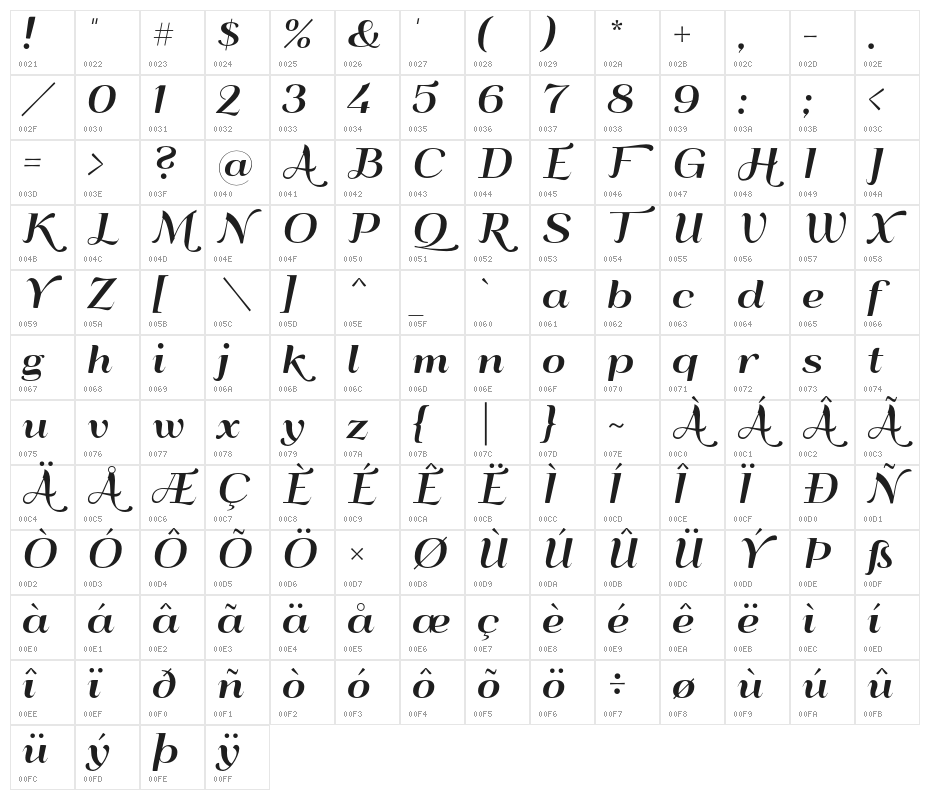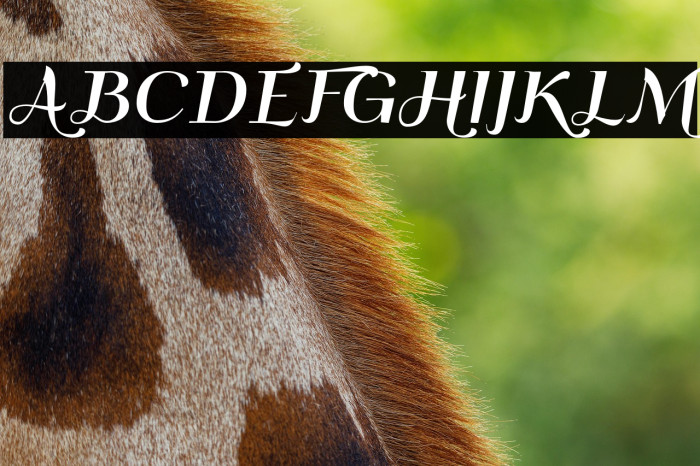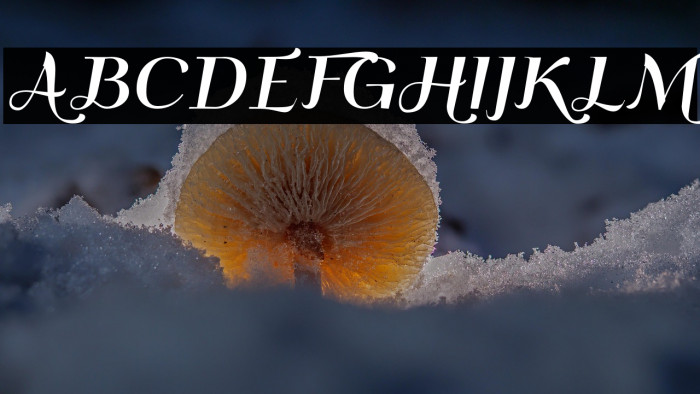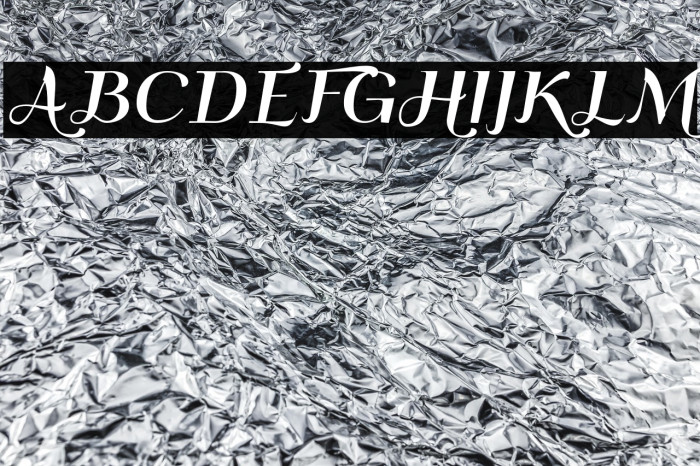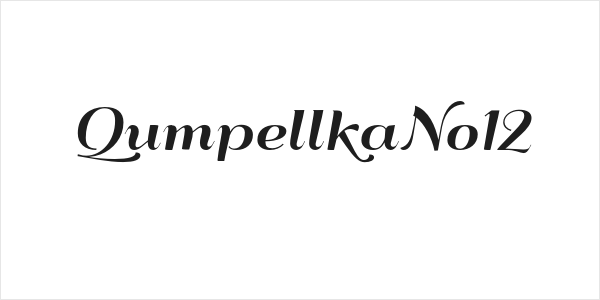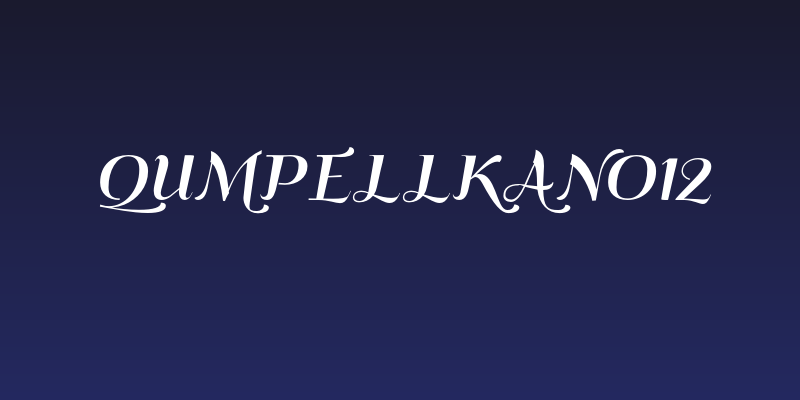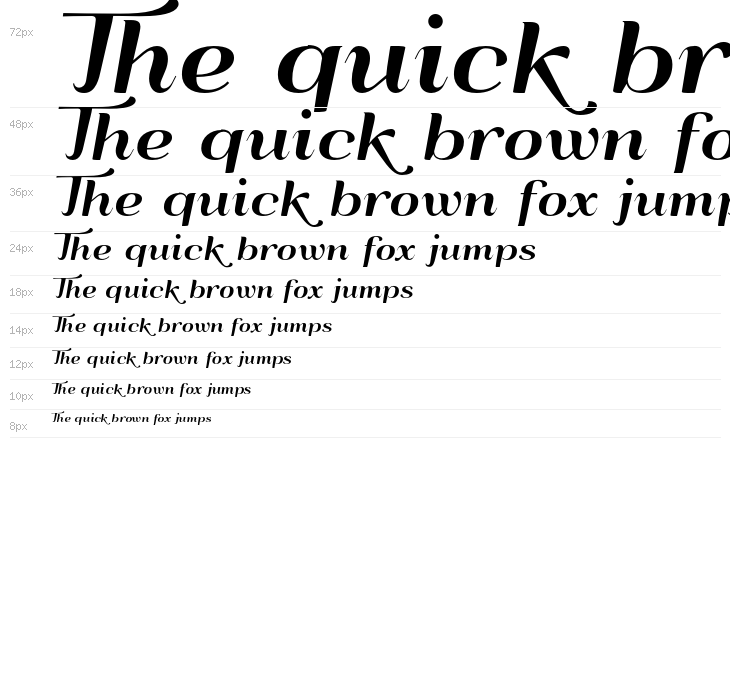
QumpellkaNo12 Font
QumpellkaNo12 Description
This font features a sophisticated and elegant script style with a modern twist. The uppercase letters exhibit graceful curves and flourishes, particularly noticeable in characters like 'A', 'G', and 'Q'. The lowercase letters maintain a smooth flow, with a slight slant that enhances its cursive nature. The numerals are stylishly crafted, complementing the overall aesthetic. Special characters are designed with flair, adding to the decorative appeal. The font's design is both artistic and readable, making it suitable for various creative applications.